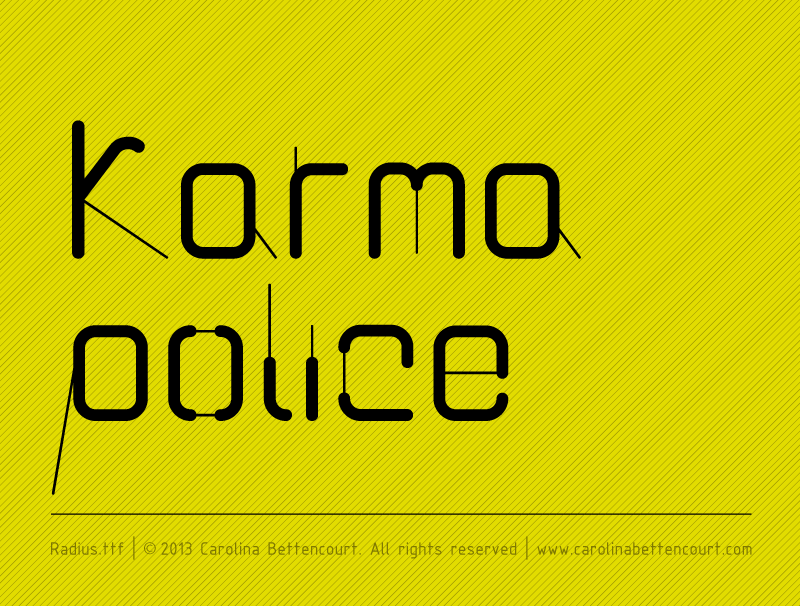
Font name: | Radius |
Author: | Carolina Bettencourt |
Note by Carolina Bettencourt | |
Radius is a typeface that plays with two different widths and very round or very straight lines. |